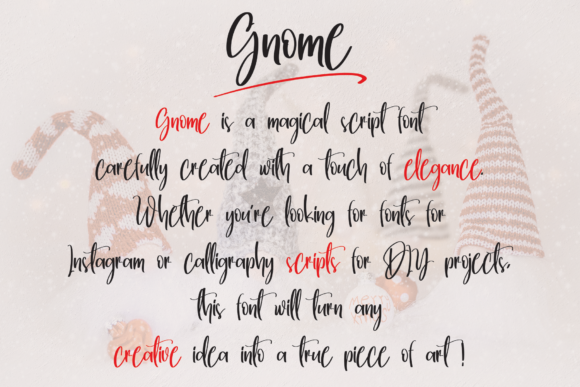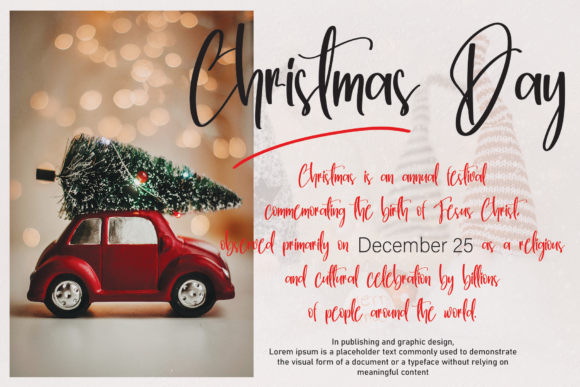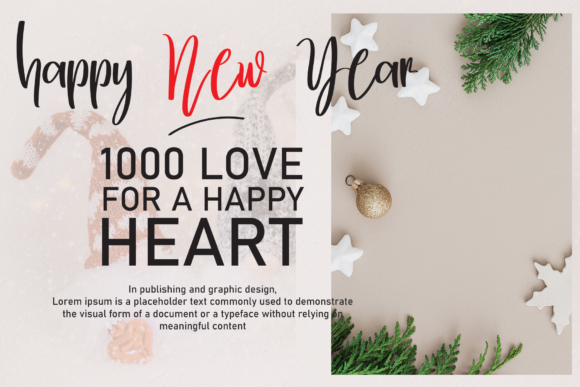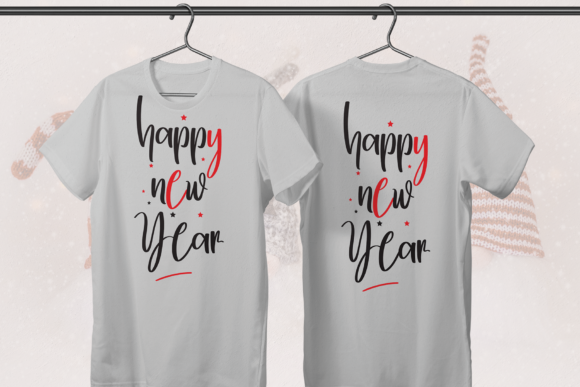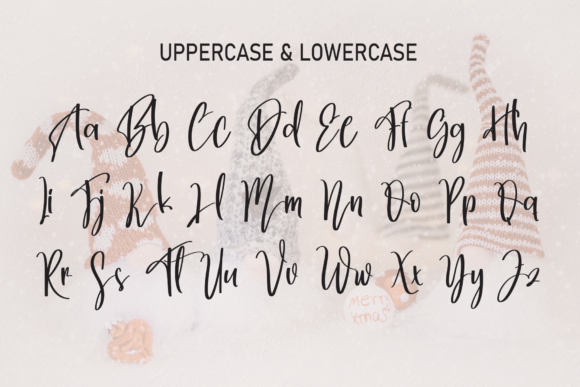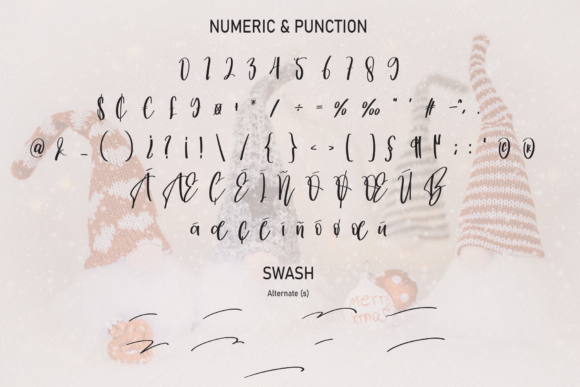
The Gnome Font: A Timeless Handwritten Treasure for Designers
Have you ever been in the middle of a design project, and suddenly, you’re stuck on finding the perfect font? I recall a particularly frustrating moment when a client asked for a logo that was both modern and vintage, and I was scratching my head, wondering which font could possibly fit the bill. That’s when I stumbled upon the Gnome font, a lovely and timeless handwritten font that has since become a staple in my design toolkit.
A Personal Review: What I Love About Gnome Font
So, what makes Gnome font so special? Here are a few things that I absolutely adore:
- ✨ Unique and beautiful touch: Every letter in Gnome font has a distinct character, making it perfect for creating eye-catching logos, branding, and quotes.
- ✅ Handwritten charm: Gnome font has a warm, organic feel that adds a personal touch to any design.
- 💫 Versatility: This font is incredibly versatile and can be used for a wide range of design projects, from elegant branding to playful crafts.
While Gnome font is an amazing addition to any design project, there are a few minor quirks to be aware of:
- 🤔 Limited availability of certain characters: Some users have reported that certain special characters or glyphs are not available in Gnome font.
- ⚠️ May not be suitable for body text: Due to its handwritten nature, Gnome font may not be the best choice for large blocks of body text.
The Backstory Behind Gnome Font
While the origins of Gnome font are shrouded in mystery, it’s said that the font was inspired by the whimsical illustrations of classic children’s books. The designer, a lover of handmade crafts and vintage typography, sought to create a font that captured the essence of a bygone era.
| What is Gnome font best used for? | Gnome font is perfect for creating eye-catching logos, branding, and quotes, as well as adding a touch of elegance to crafts and creative projects. |
| Is Gnome font suitable for body text? | While Gnome font is beautiful, it may not be the best choice for large blocks of body text due to its handwritten nature. |